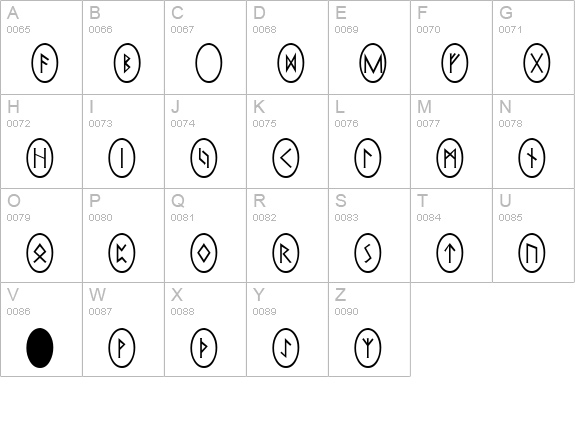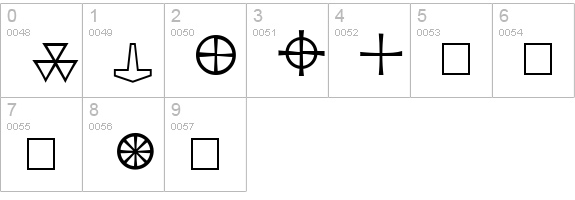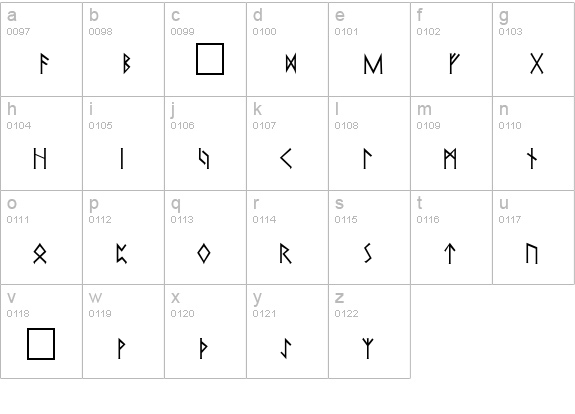
Pi Rho Runestones Font Details
Introducing Pi Rho Runestones, a captivating and mystifying font that will transport you to ancient realms and unlock the secrets of the runic alphabets. Each character of this typeface is meticulously crafted to resemble the ancient runestones, bringing an aura of authenticity and enchantment to your projects. Pi Rho Runestones is not just another font, it is a gateway to the magical world of runic symbolism. Whether you are a historian, a fantasy enthusiast, or simply seeking a unique and captivating font for your designs, Pi Rho Runestones will surely leave a lasting impression. With its intricate details and carefully designed glyphs, this font offers versatility in its usage. From logos and branding to book covers and invitations, Pi Rho Runestones adds a touch of ancient wisdom and mysticism to any project. And the best part? Pi Rho Runestones is available for free download exclusively at FontsMarket.com. We believe that creativity should be accessible to all, and that's why we are thrilled to offer this extraordinary font at no cost. Now you can unleash your imagination and explore the ancient world of runes without any limitations. So, go ahead and download Pi Rho Runestones today from FontsMarket.com. Let this font be your guide as you embark on a journey through time, unraveling the secrets of the past and infusing your designs with the power of the runic symbols. The possibilities are endless, and with Pi Rho Runestones, your creativity knows no bounds.